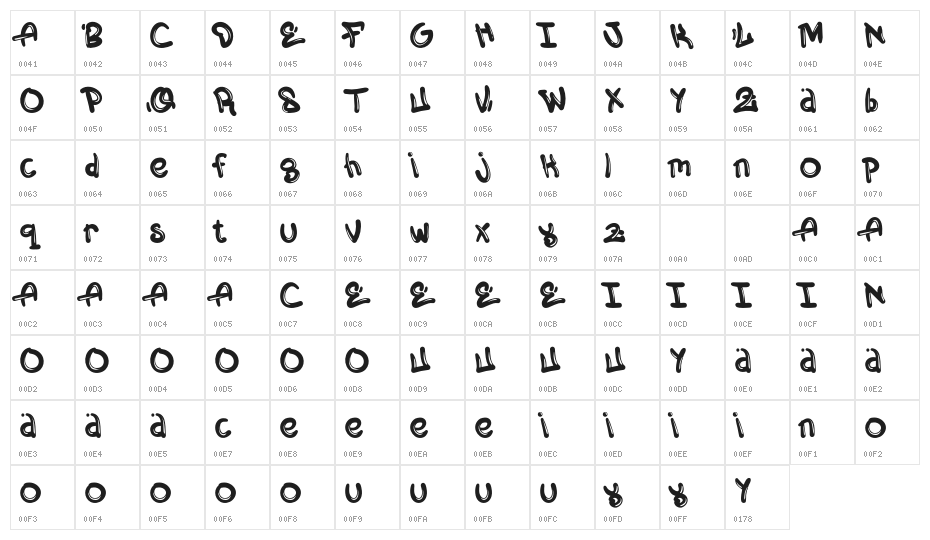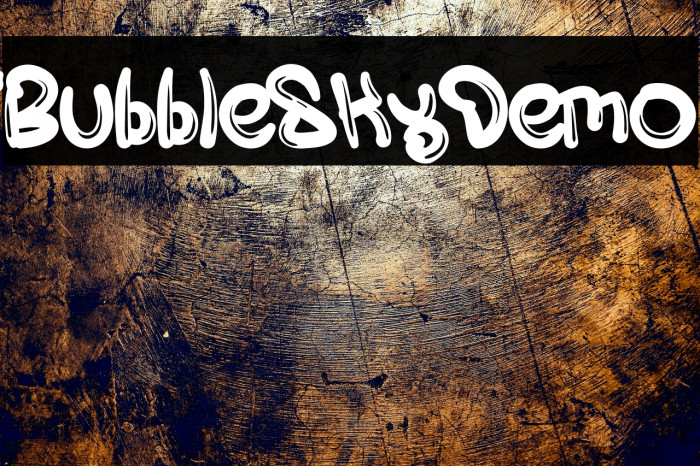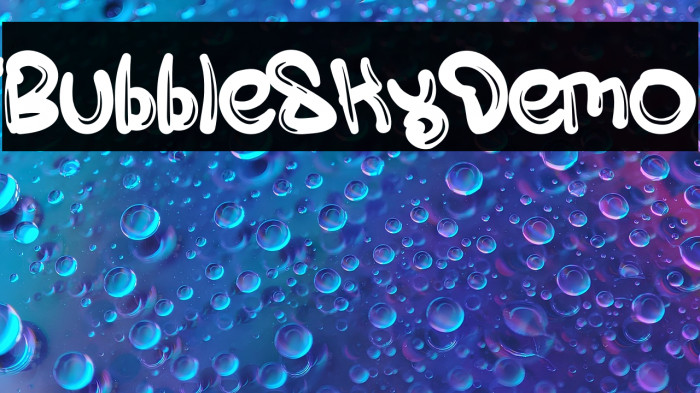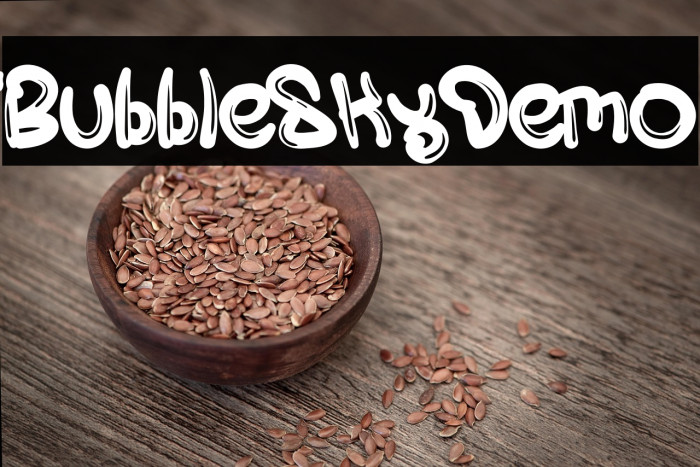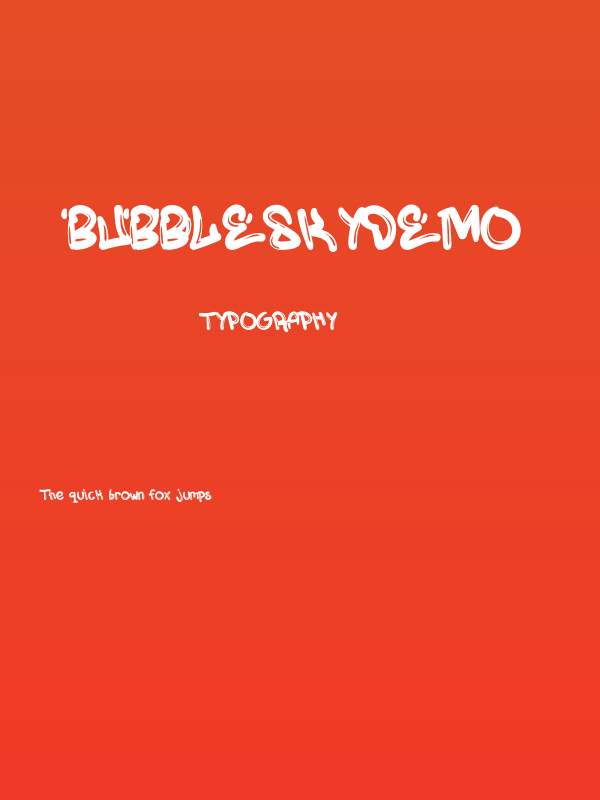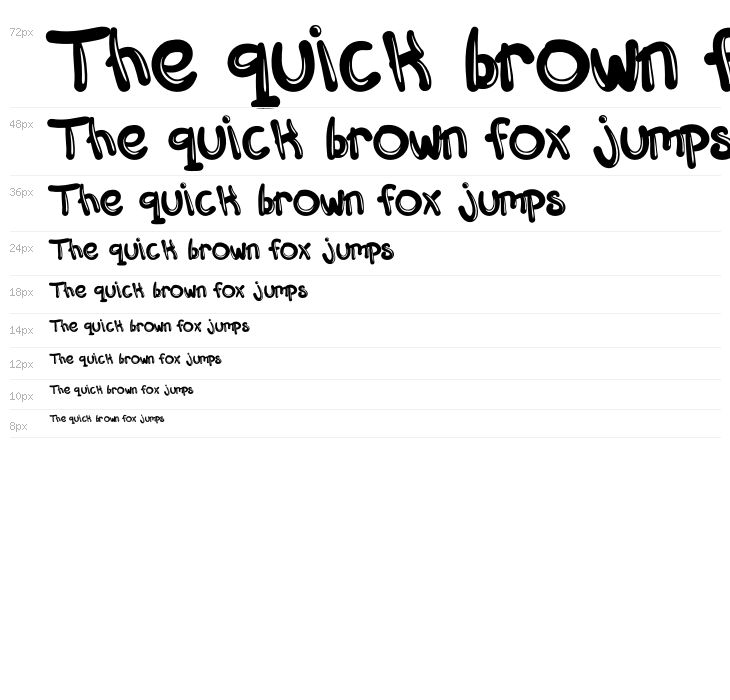
BubbleSkyDemo Font
BubbleSkyDemo Description
This playful and whimsical font features a bubbly, hand-drawn style that exudes a sense of fun and creativity. The characters are bold and rounded, with a consistent thickness that gives them a cartoonish appearance. The uppercase and lowercase letters maintain a cohesive look, with slight variations that add to the font's charm. The numbers and special characters are designed to match the playful aesthetic, making this font ideal for projects that require a lighthearted and informal touch. Its unique style makes it stand out, perfect for capturing attention in a variety of design contexts.
| Proposed Projects | Great for children's books, playful branding, party invitations, and creative posters. |